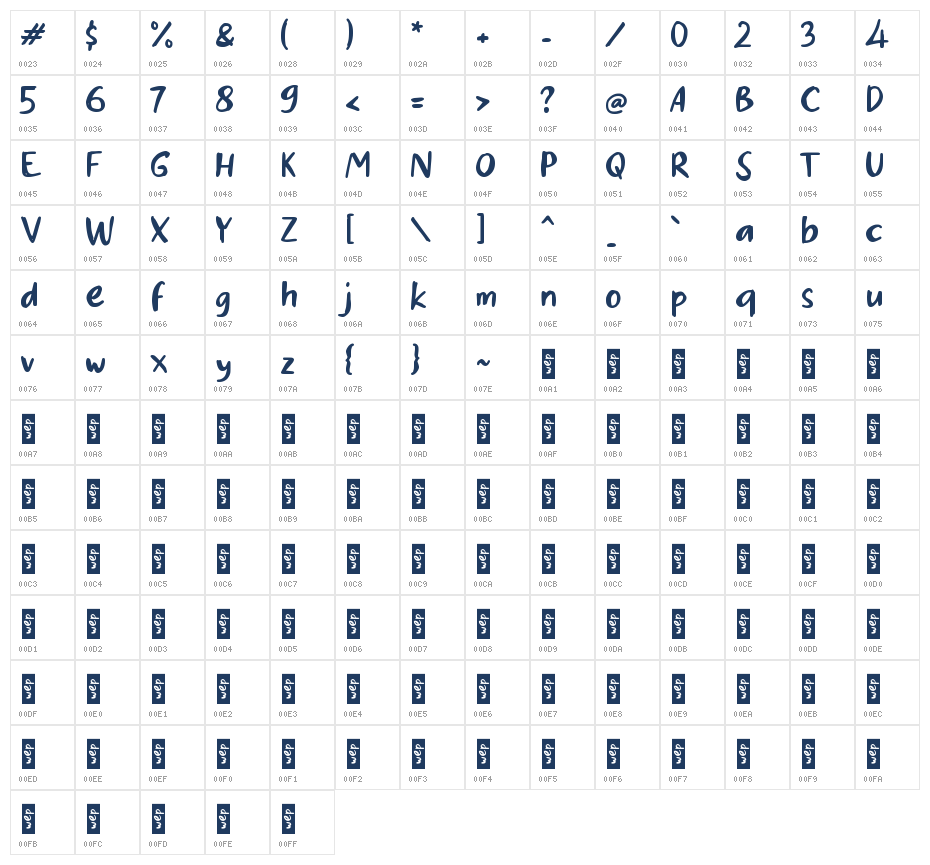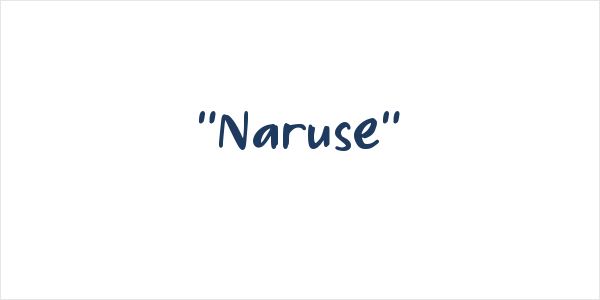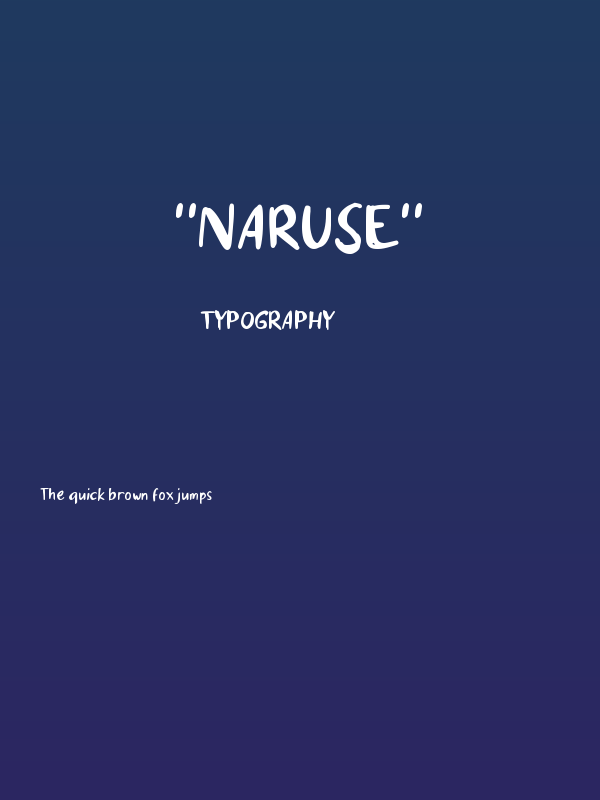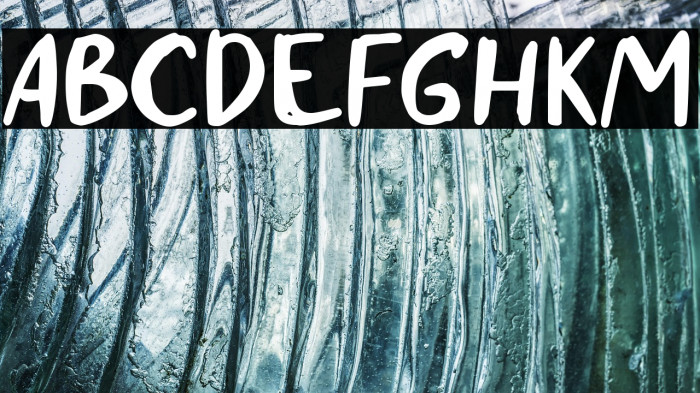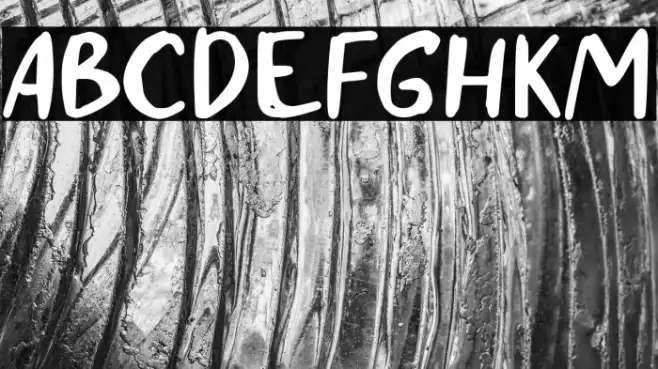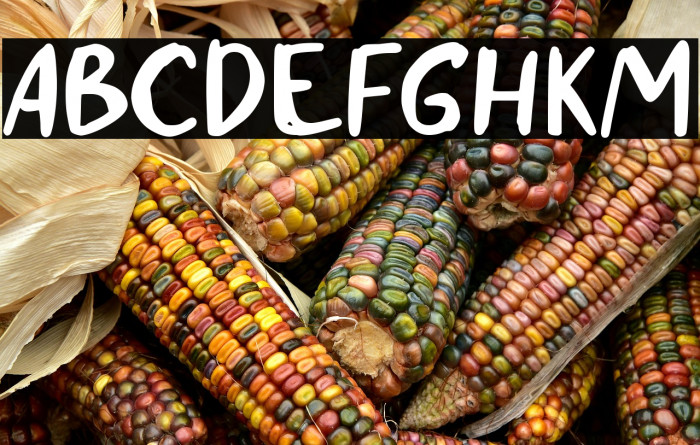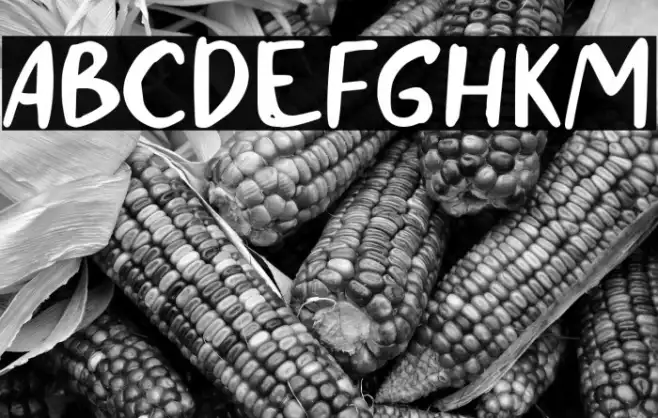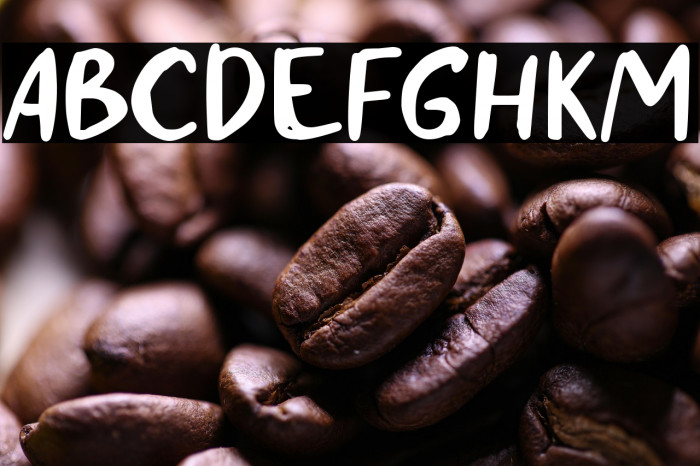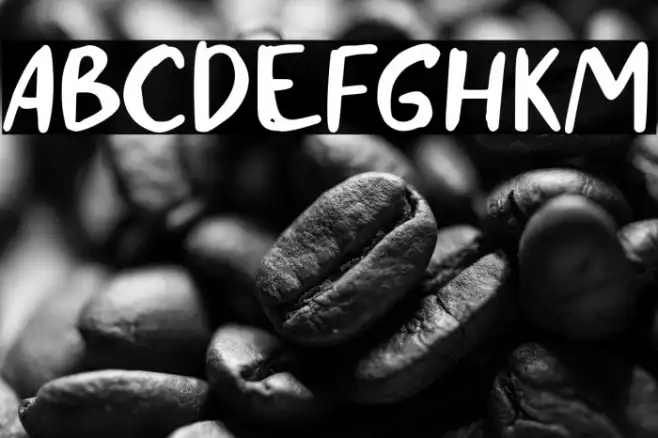
"Naruse" Font
"Naruse" Description
A casual, handwritten script font with a playful and informal style, featuring rounded and slightly irregular characters.
| Overall Style | Casual, Playful, Handwritten |
| Use Case | Headlines, Body text, Logos, Invitations, Creative projects |